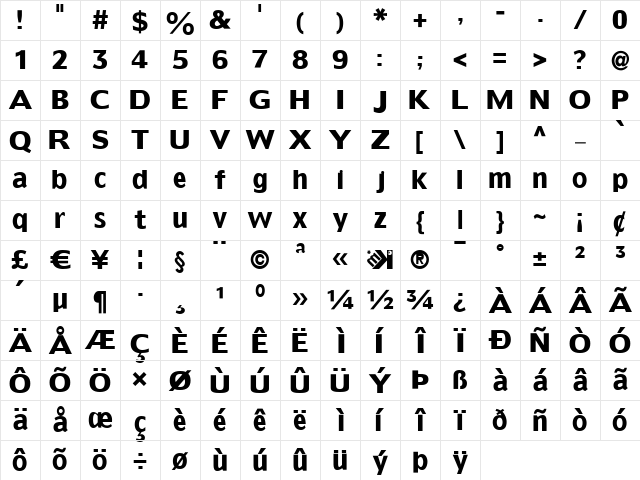
GrotesqueBoldTallX is a composed and adaptable typeface that performs quietly and consistently across a wide range of design contexts. Its bold stroke weight gives it real presence on the page.